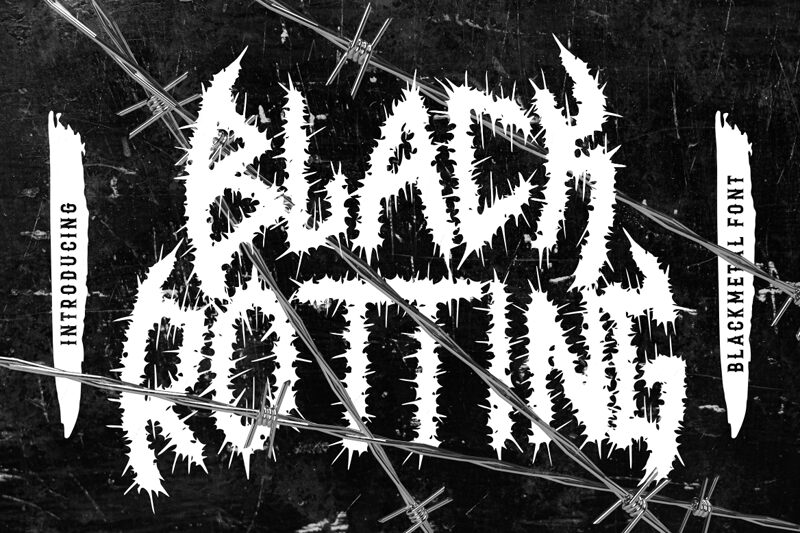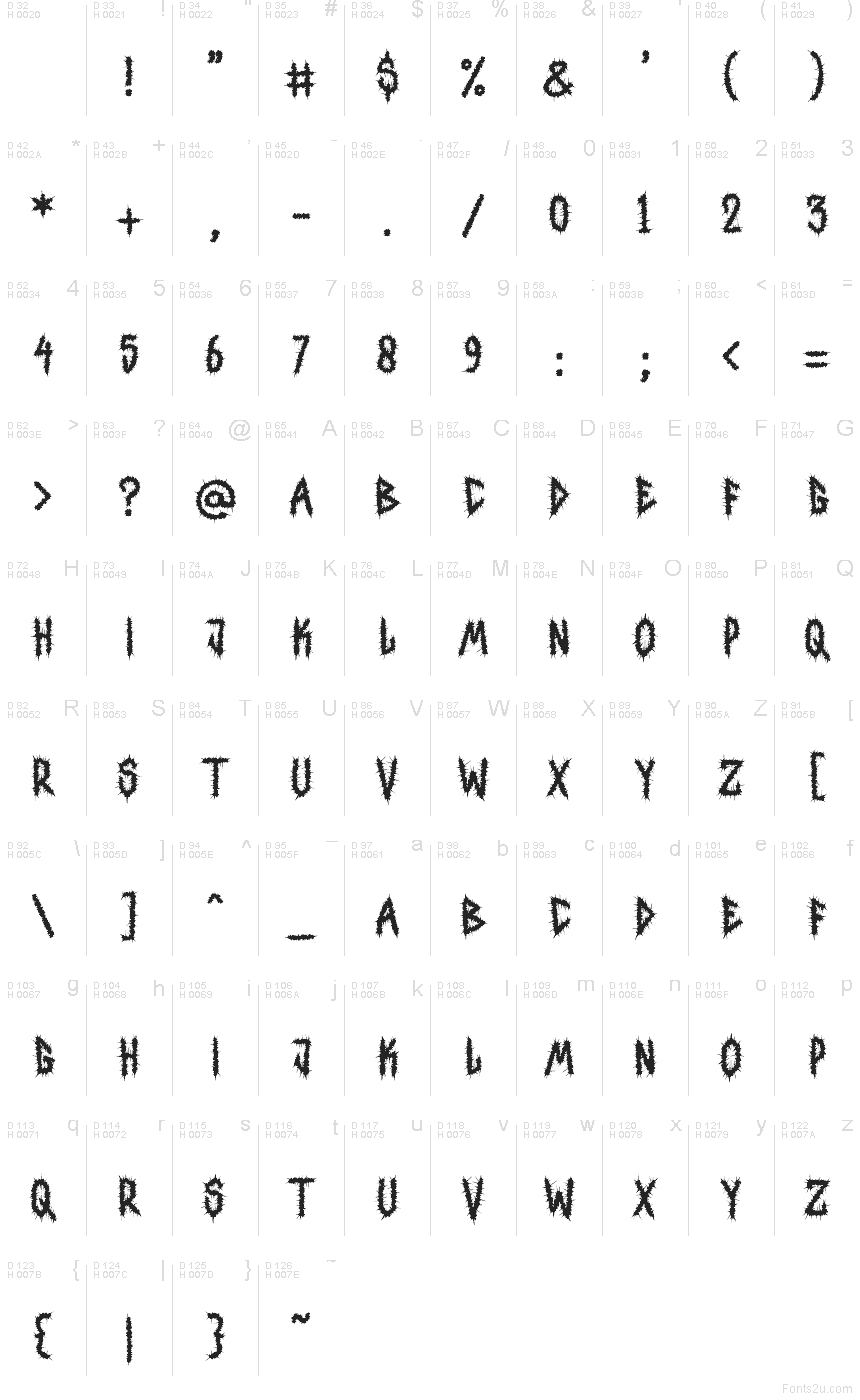
Black Rotting
Black Rotting by Putracetol Studio is a free modern gothic display font with a feral, black-metal bite. The letters look ripped and overgrown with thorns, turning rough handwritten forms into a chaotic silhouette that feels hostile, ritualistic, and a little diseased.
It fits music posters, horror branding, zine covers, game title cards, and merch graphics where the lettering needs to feel like part of the atmosphere, not just a label. As a free font, it also works for short cover lines, band marks, and monogram-like initials, because the jagged edges and tangled spikes give even a few letters a charged, unstable presence.